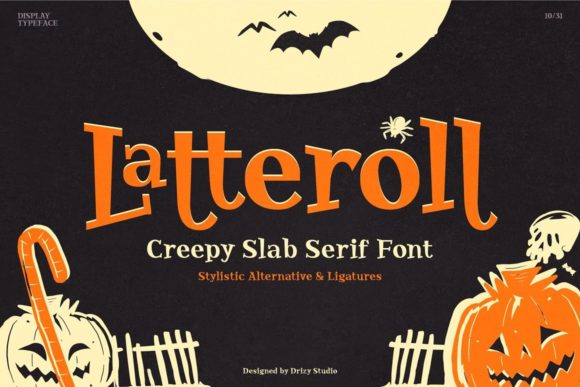
Latterol Font
Introducing Latterol Font, the chillingly delightful serif font that will cast a spell on your designs! Conjuring an aura of eerie whimsy, Latterol is the perfect font for creating captivating content that will send shivers down your audience's spines.
Immerse yourself in the enchanting world of Halloween with Latterol, where each letter transforms into a haunting silhouette, ready to dance across your designs with a mischievous grin. Its intricate details and playful curves evoke the spirit of a spooky tale, making it the ideal choice for crafting spine-tingling posters, invitations, and greeting cards that will leave a lasting impression.
But Latterol's enchantment doesn't end there! Its versatility extends beyond the realm of the macabre, inviting you to explore a vast array of creative possibilities. Picture storybooks adorned with its whimsical characters, stationery that sparks a shiver of excitement, and branding that exudes a touch of the extraordinary.
With its inherent creepiness and captivating charm, Latterol Font is the perfect choice for those seeking to enchant their audience with a touch of the unknown. Its ability to evoke emotions and create a lasting impact makes it a font that will haunt your designs in the most delightful way.
Step into the world of Latterol today and unlock the secrets of a font that will add a touch of magic to your creative endeavors. Its haunting beauty and captivating presence will leave you spellbound, eager to weave its wicked charm into all your designs.